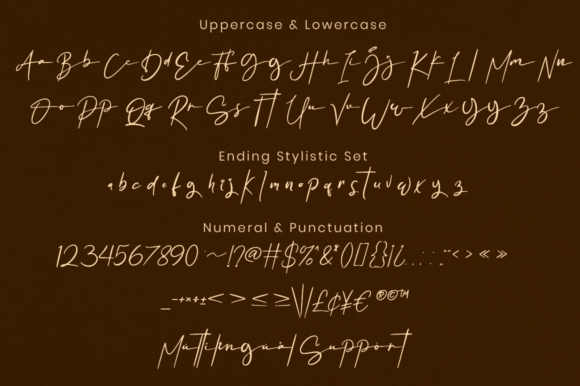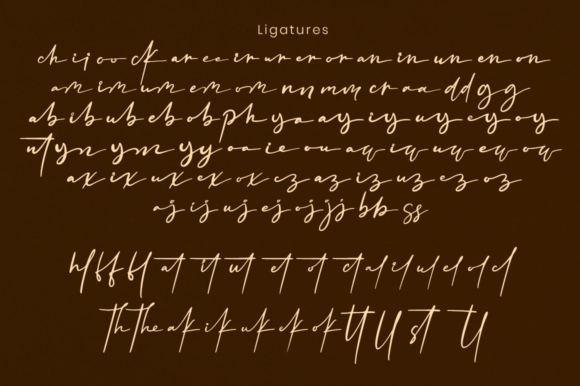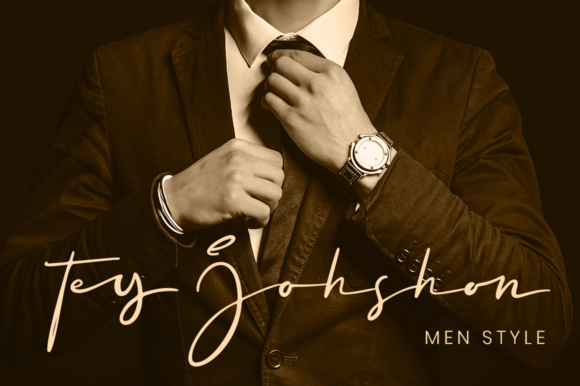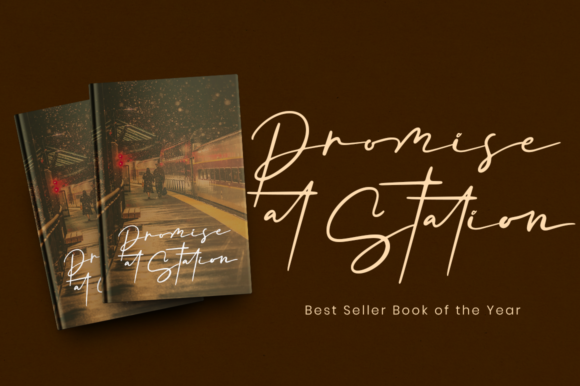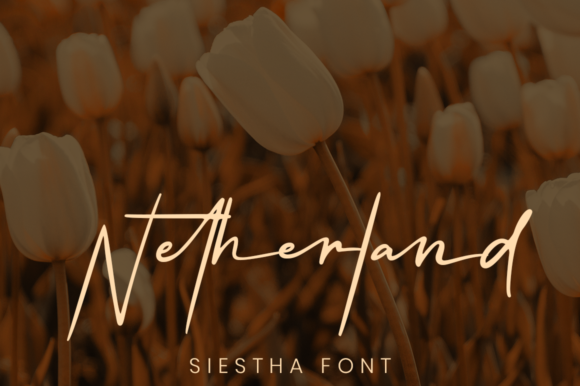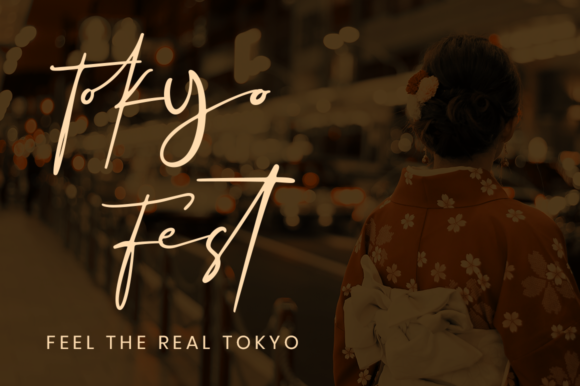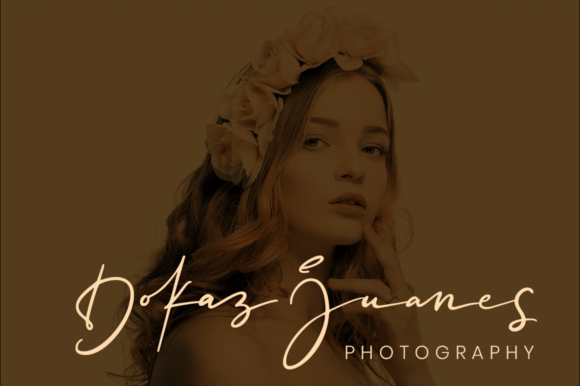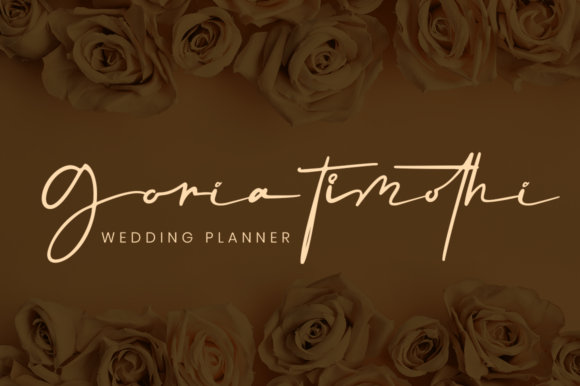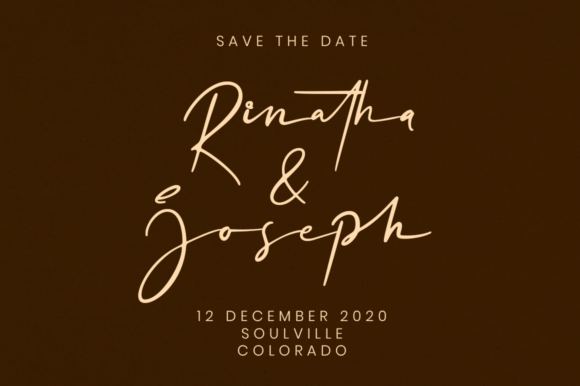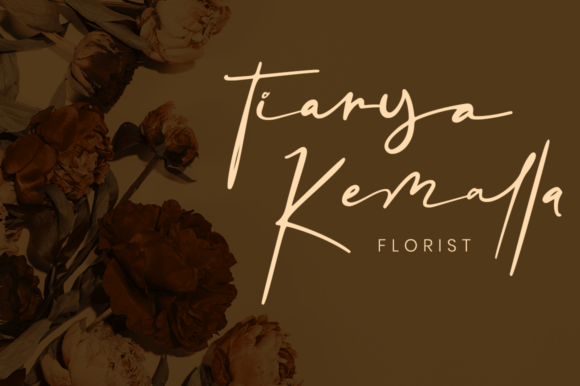
Siestha Font
About Siestha Font
Siestha is a relaxed and incredibly authentic handwritten font. It maintains its classy calligraphic influences while feeling contemporary and fresh. This versatility will appeal to a wide range of crafty ideas, from letterheads and titles, to stationery.